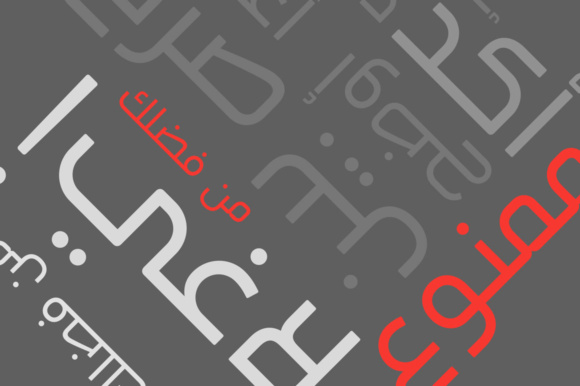
Venture into the realm of captivating typography with Tasreeh, an Arabic font that commands attention and leaves an indelible mark on your designs. Crafted by the skilled hands of Mostafa El Abasiry, Tasreeh is not just a font; it's an artistic statement, a permit to express your ideas with boldness, and an announcement of your design prowess.
Tasreeh's letterforms dance with an energetic vitality, creating a visual symphony that draws the eye and captivates the senses. Its active structure breathes life into words and phrases, transforming ordinary text into a dynamic display of visual artistry.
Unleash the power of Tasreeh for your titling endeavors, letting your headlines and titles shine with an authority that demands attention. Craft signage that speaks volumes, leaving a lasting impression on passersby and customers alike. Engage your audience with instructional designs that inform and guide with clarity and style. Make your news headings pop with a vibrancy that keeps readers hooked and eager for more.
Beyond publication and commercial designs, Tasreeh opens up a world of creative possibilities. Its versatility knows no bounds, making it a font of choice for logos, branding, social media graphics, and even digital displays. Imagine your brand name adorned with the striking elegance of Tasreeh, leaving an unforgettable imprint on the minds of your audience.
With Tasreeh, you possess a font that transcends the ordinary, a font that elevates your designs to new heights of visual appeal. Its captivating charm and undeniable presence make it a must-have for any designer seeking to make a statement.
Don't settle for mundane fonts that blend into the background. Embrace the transformative power of Tasreeh and watch your designs come alive with a captivating allure that captivates and inspires.